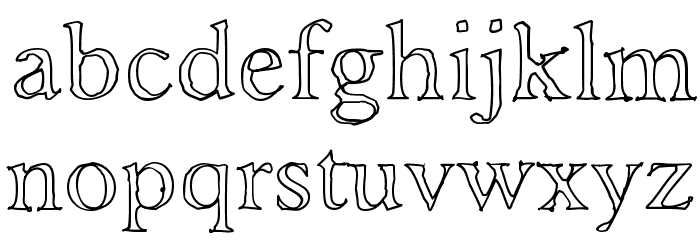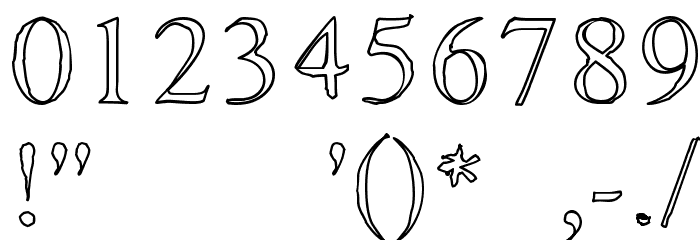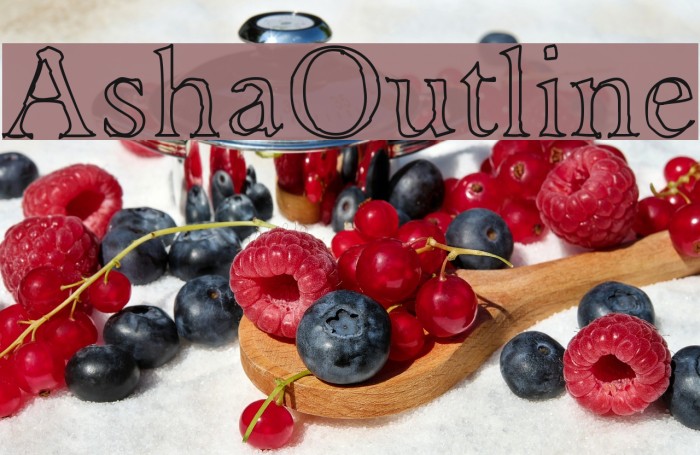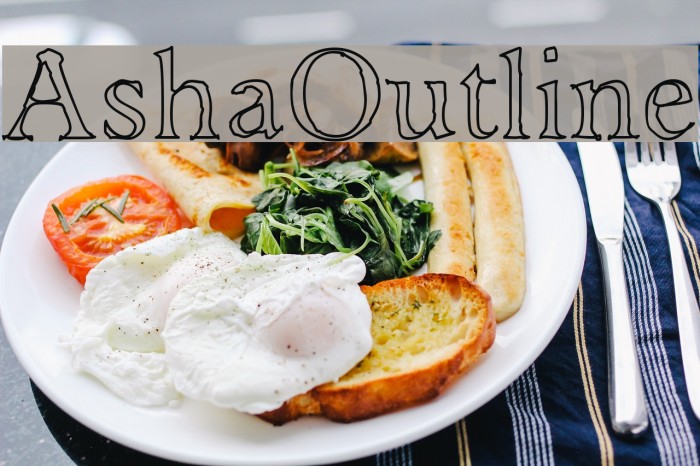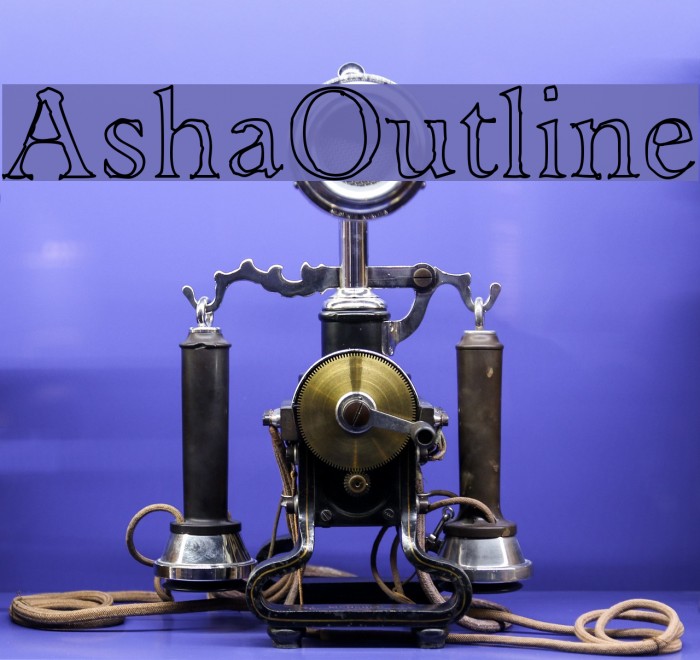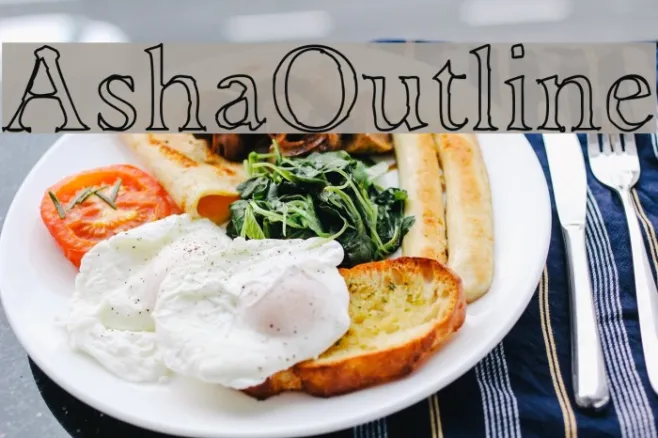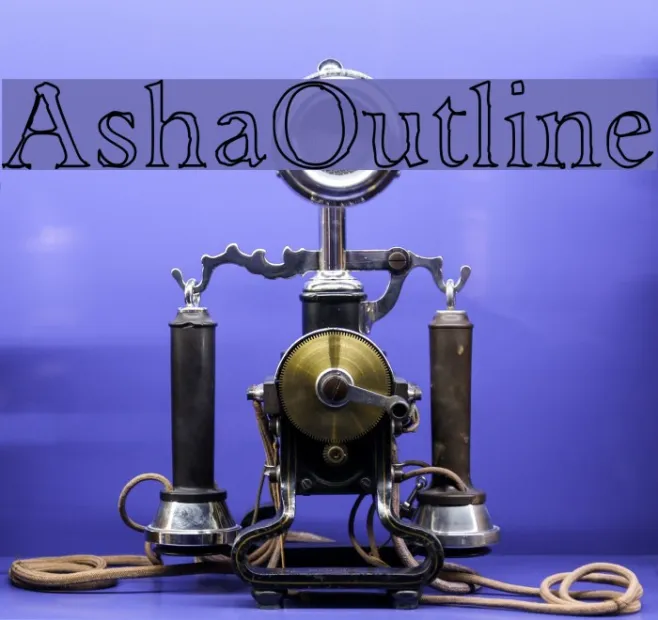
AshaOutline Font
This font features a distinctive outline style, giving it a unique and artistic appearance. The characters are serifed, with each letter having a hand-drawn quality that adds a touch of elegance and creativity. The uppercase and lowercase letters maintain a consistent style, with slightly exaggerated serifs and a playful, yet sophisticated look. Numbers and special characters follow the same design principles, ensuring a cohesive appearance across all glyphs. The font's outline nature makes it ideal for projects that require a bold statement without overwhelming the viewer.
An artistic serif outline font with a hand-drawn, elegant style.
- Proposed Projects: Ideal for creative projects such as posters, invitations, and artistic branding materials.